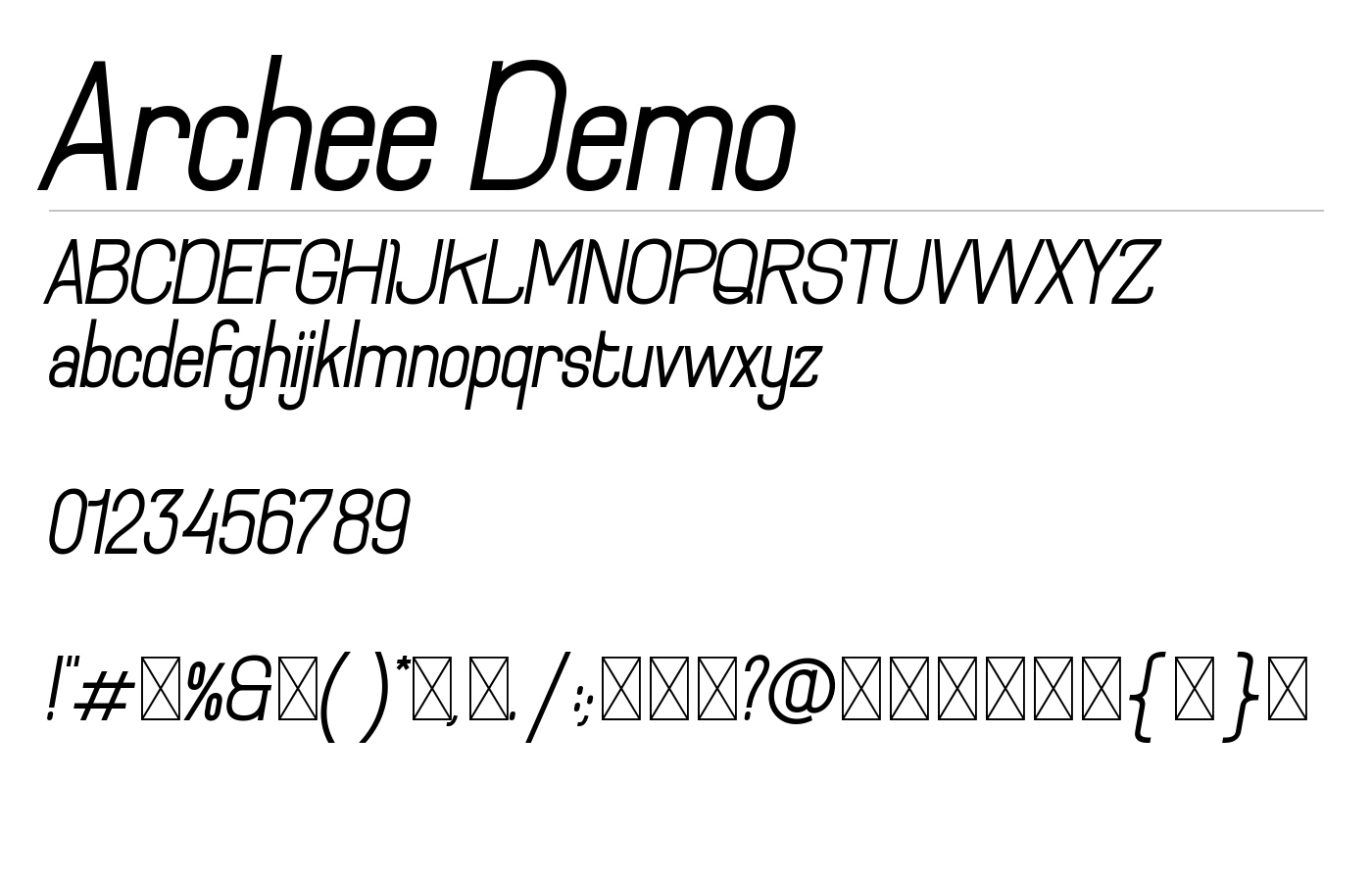
Archee Demo is a sleek, modern sans serif font characterized by its narrow, slightly condensed letterforms and elegant italic slant that convey a sense of motion and sophistication. Its light weight and consistent stroke give it a clean, minimalist look ideal for contemporary branding, editorial headlines, and stylish web design. This font’s refined style works well in settings where a polished yet dynamic appearance is desired.
Archee Demo Font
About Archee Demo Font